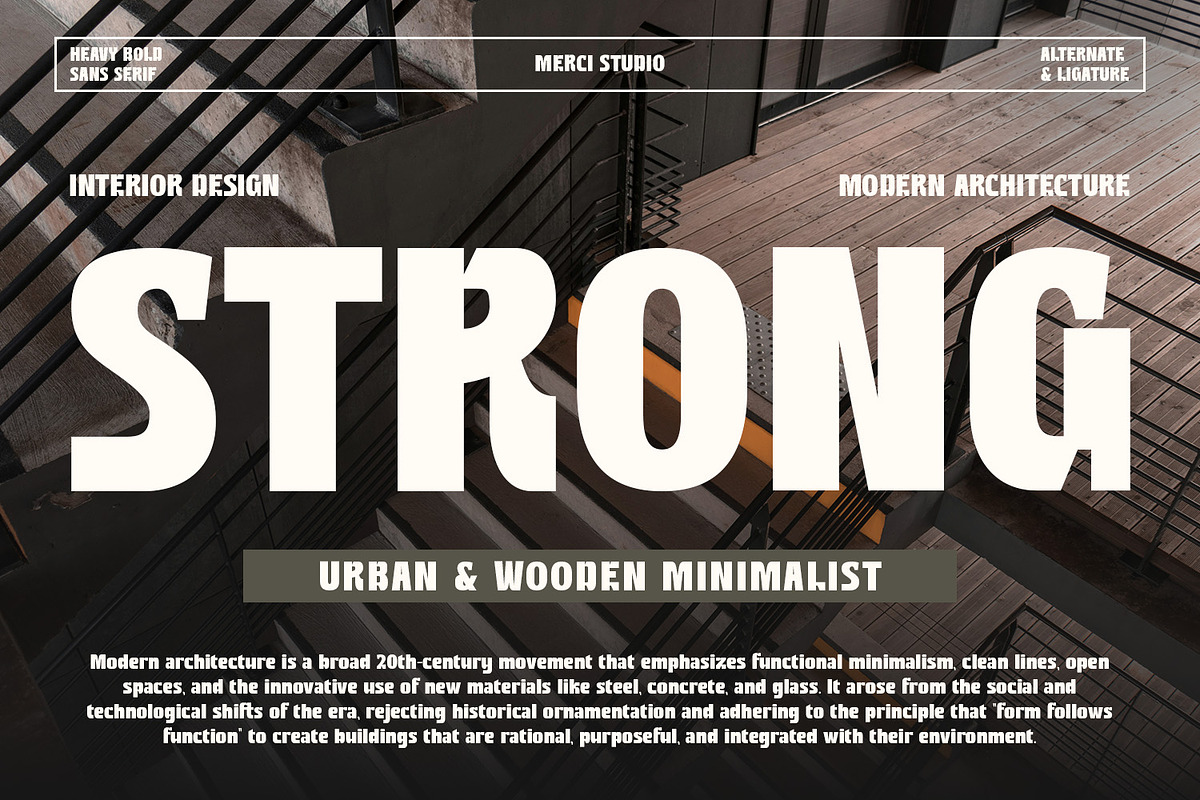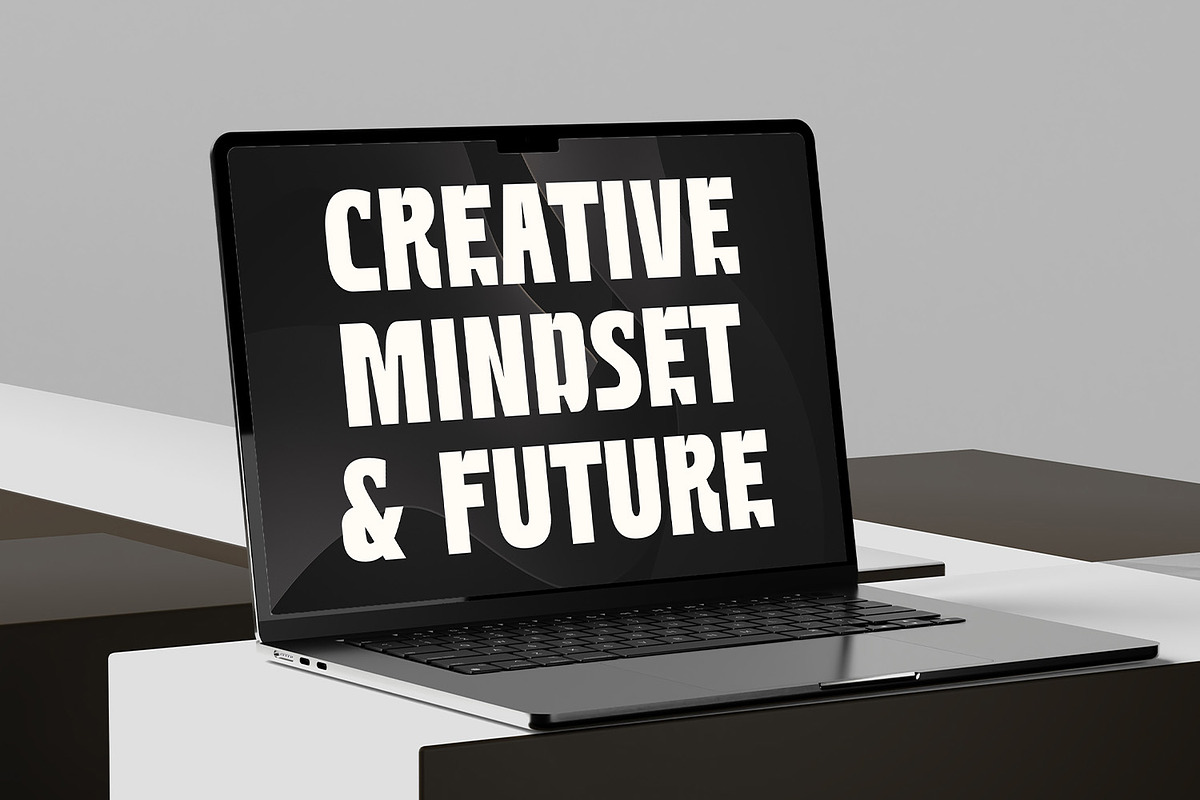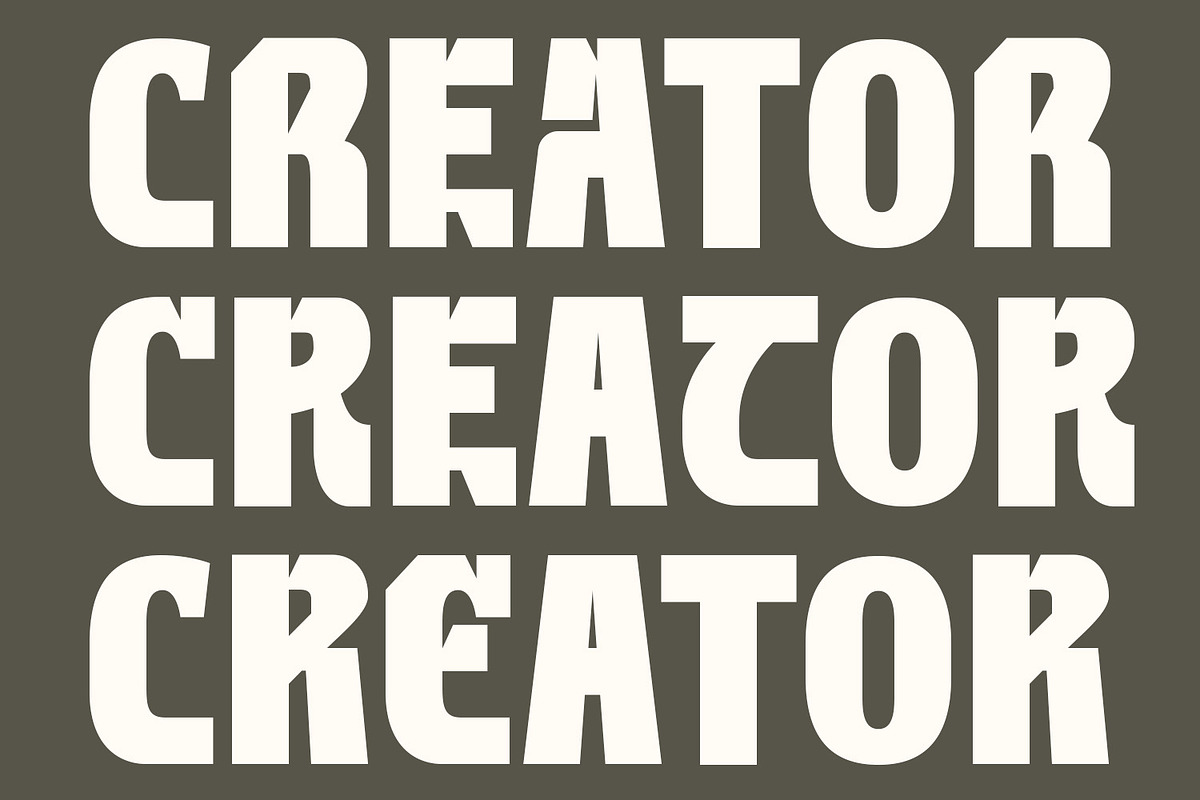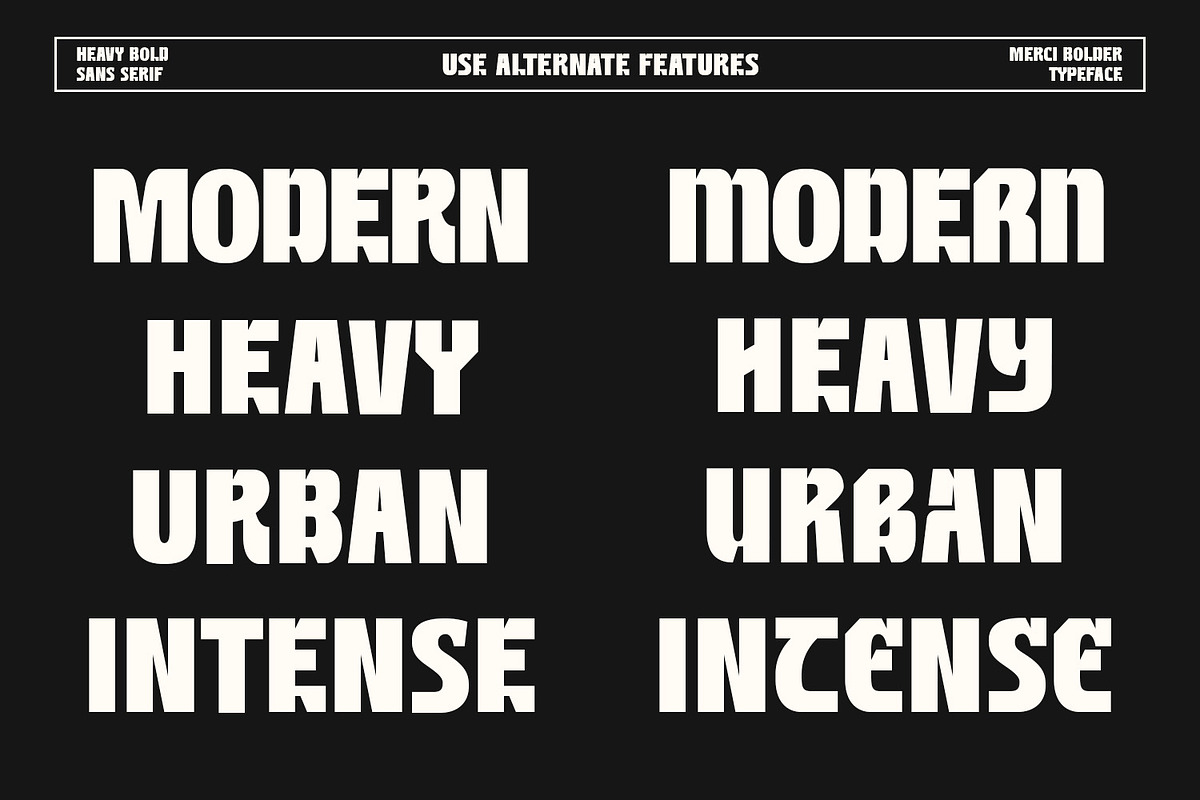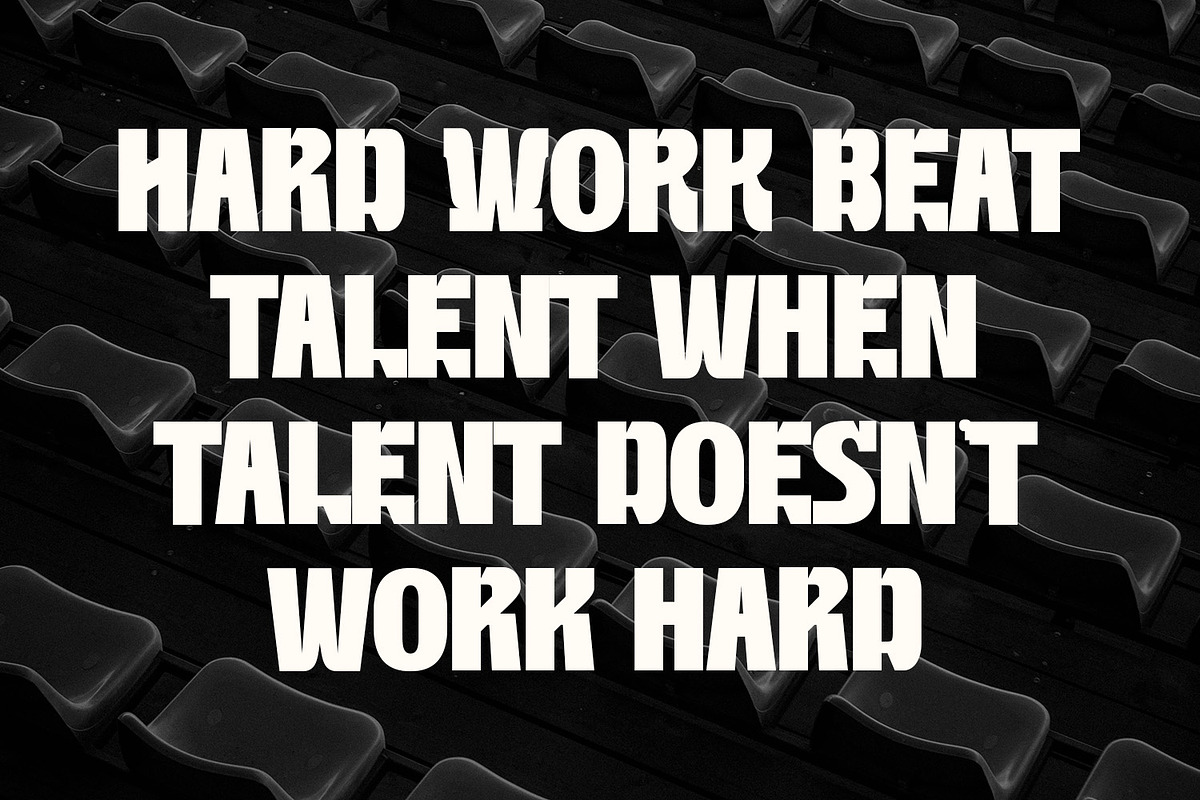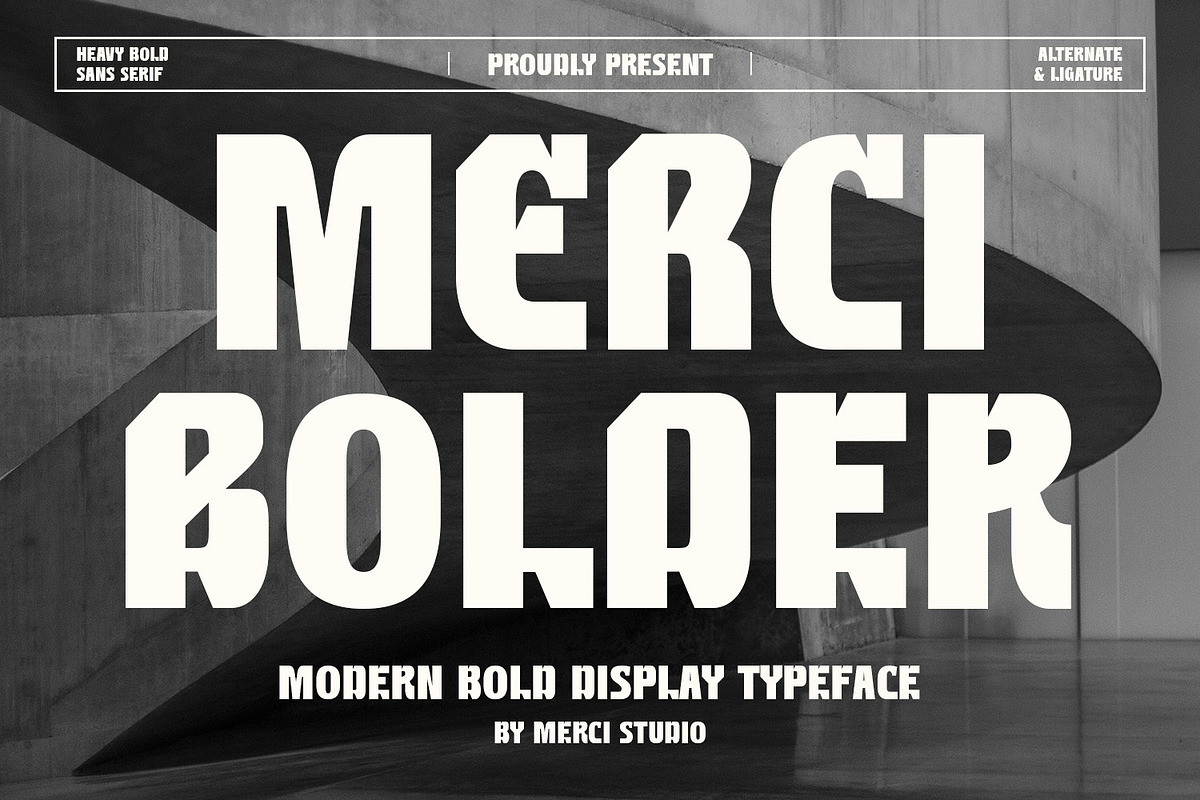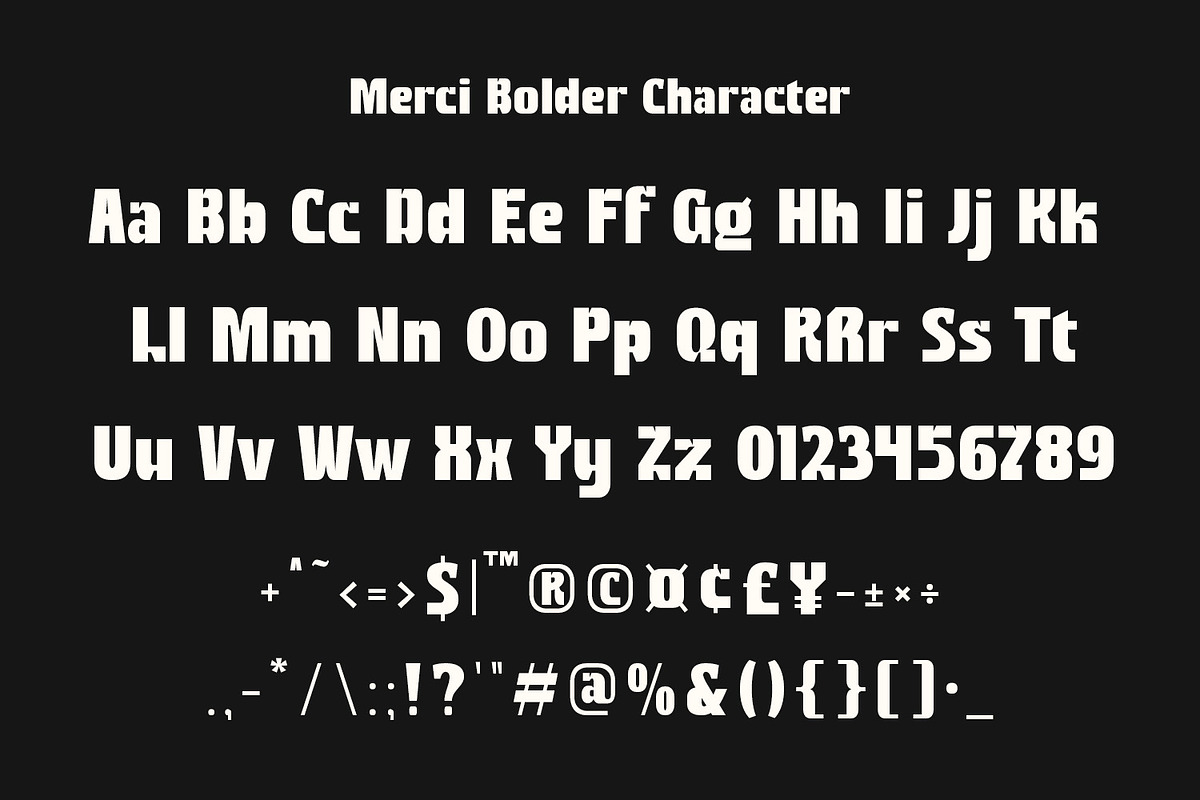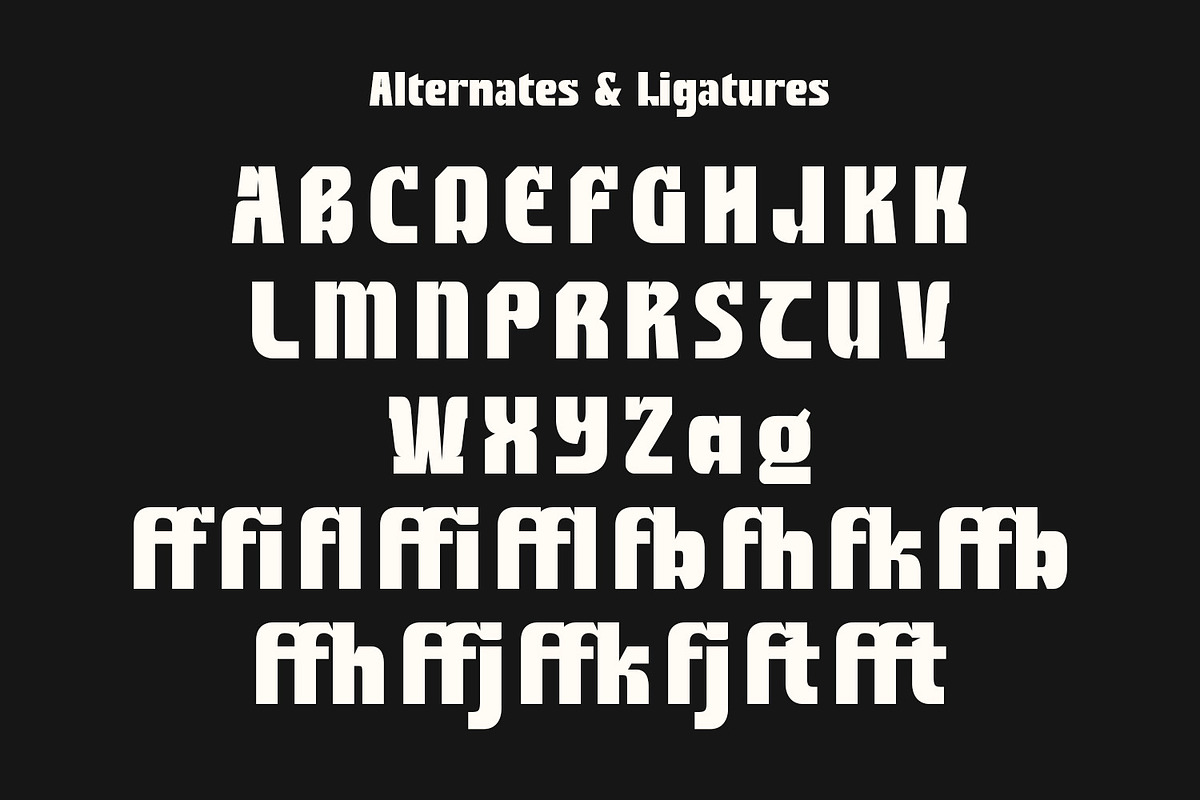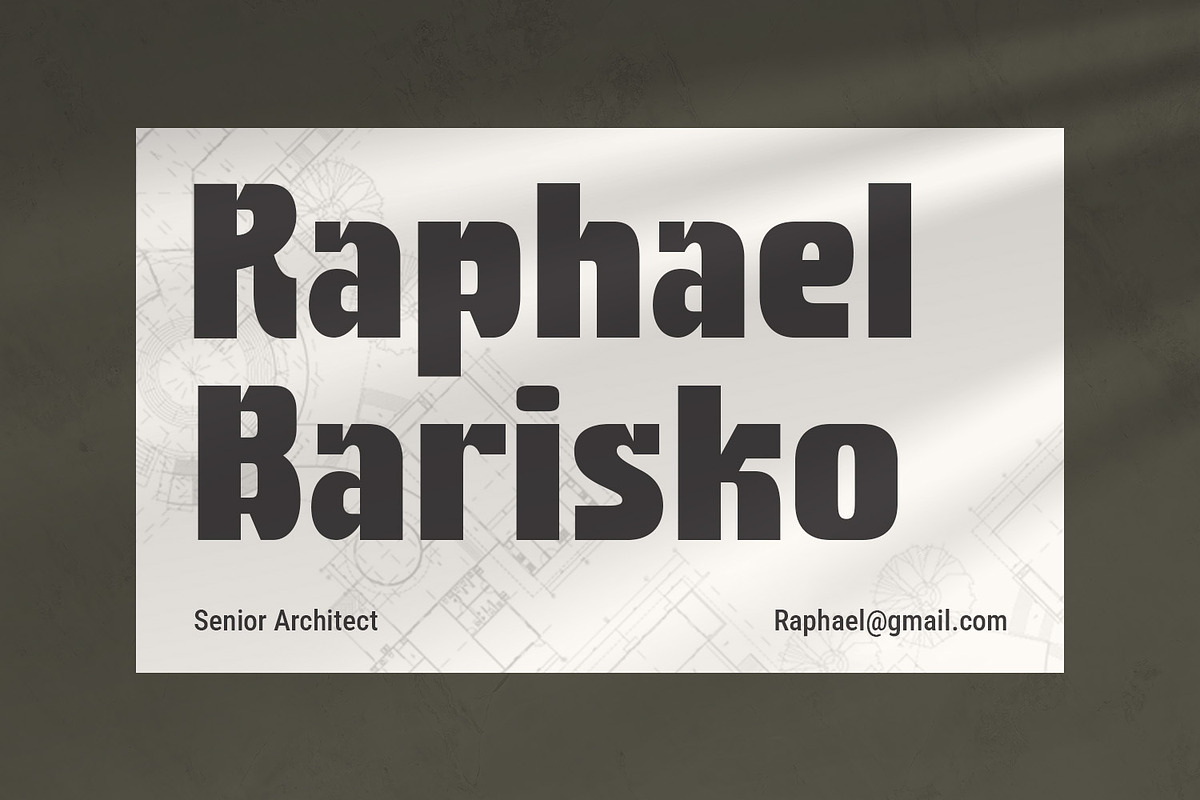
Merci Bolder – Bold Typeface
Merci Bolder is a modern bold display typeface crafted to make a statement with strength and clarity. With its heavy sans serif structure, this font is perfect for impactful headlines, striking posters, bold branding, packaging, and editorial layouts. Designed for versatility, Merci Bolder delivers a confident and modern feel while maintaining readability and balance. Its powerful letterforms and alternate ligatures offer creative flexibility, making it suitable for both contemporary and timeless design projects. Whether used in digital or print, Merci Bolder ensures your typography stands out with authority and style.
* Uppercase Letters
* Numbers & Punctuation
* Ligature & Alternate Character
* Unique Hand-Drawn Style